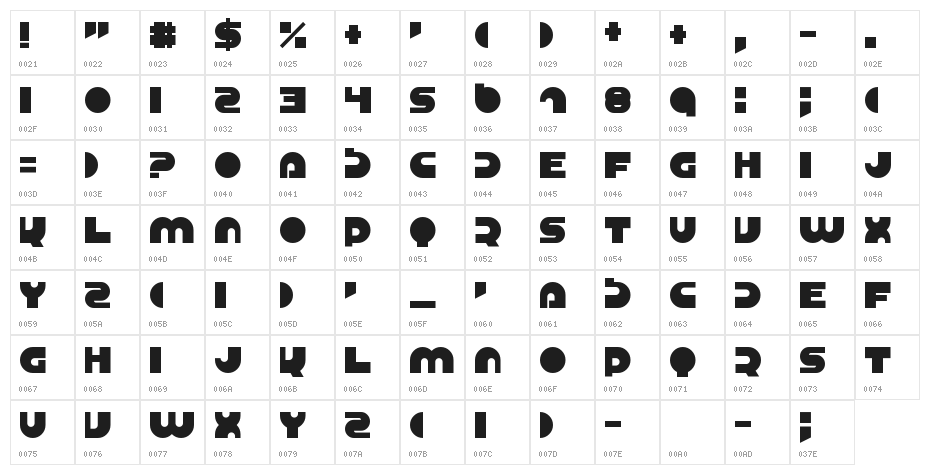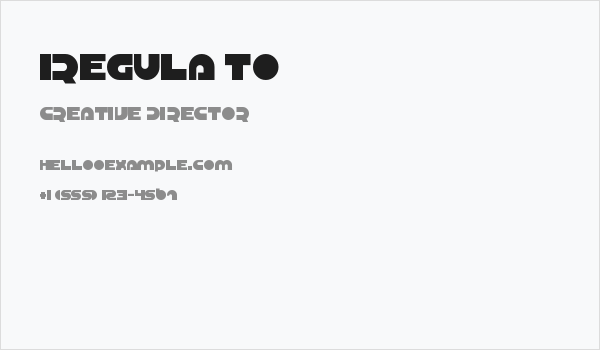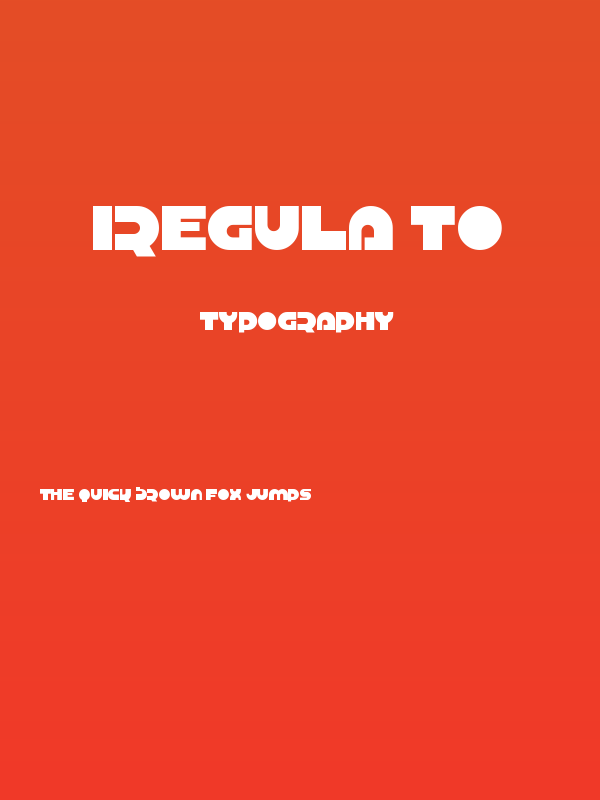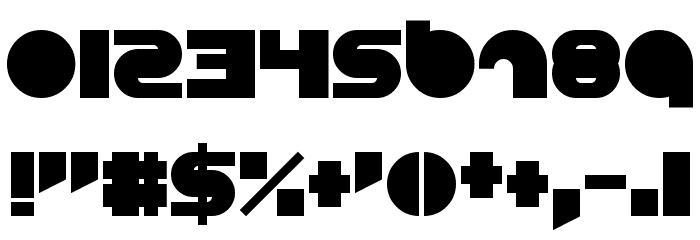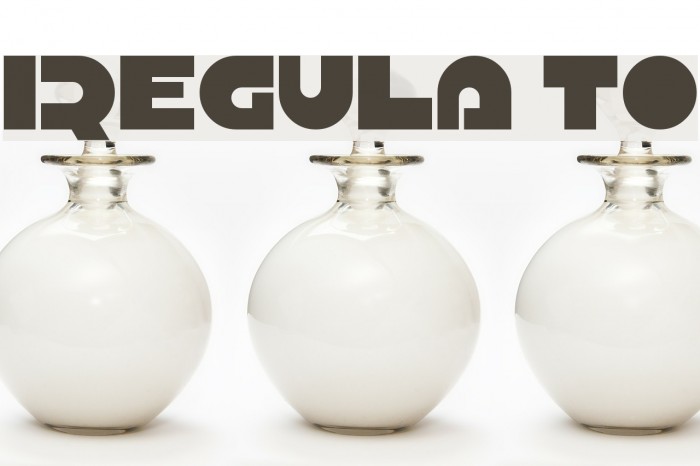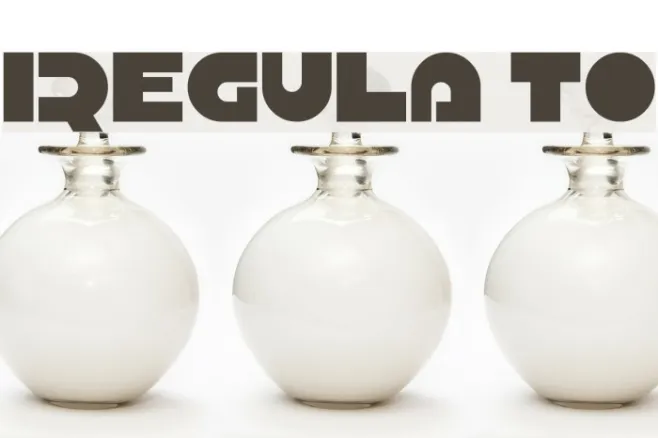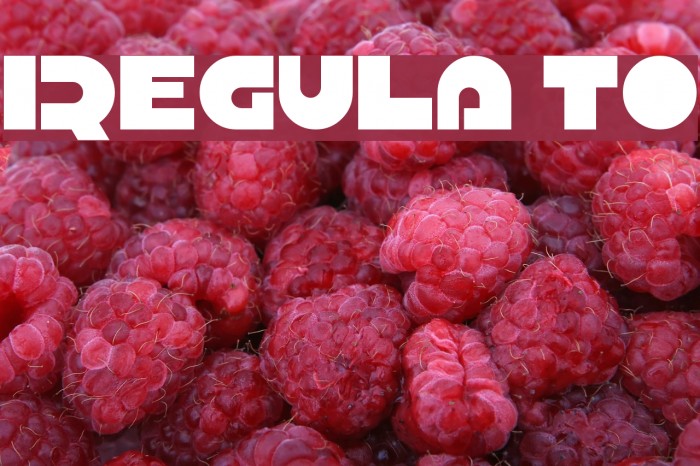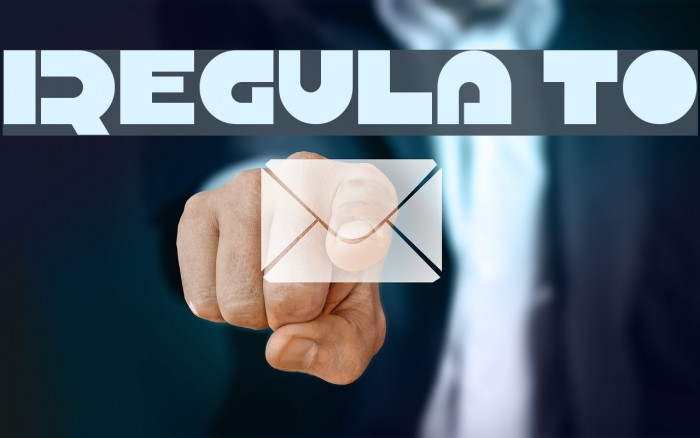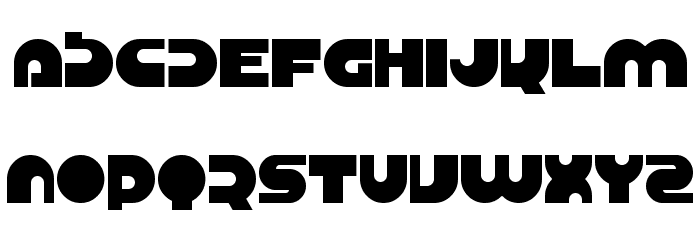
Iregula To Font
Iregula To Description
This font exhibits a bold, geometric style with a strong emphasis on circular and rectangular shapes. The characters are constructed with thick strokes, creating a heavy and impactful appearance. The design is highly stylized, with unique cutouts and angles that give it a futuristic and modern feel. The uppercase and lowercase letters maintain a consistent weight, contributing to a uniform look across the typeface. The numbers and special characters follow the same design principles, ensuring cohesion throughout. This font is ideal for projects that require a bold statement or a modern, edgy aesthetic.
| Proposed Projects | Ideal for branding, logos, posters, and headlines that require a strong visual impact. |